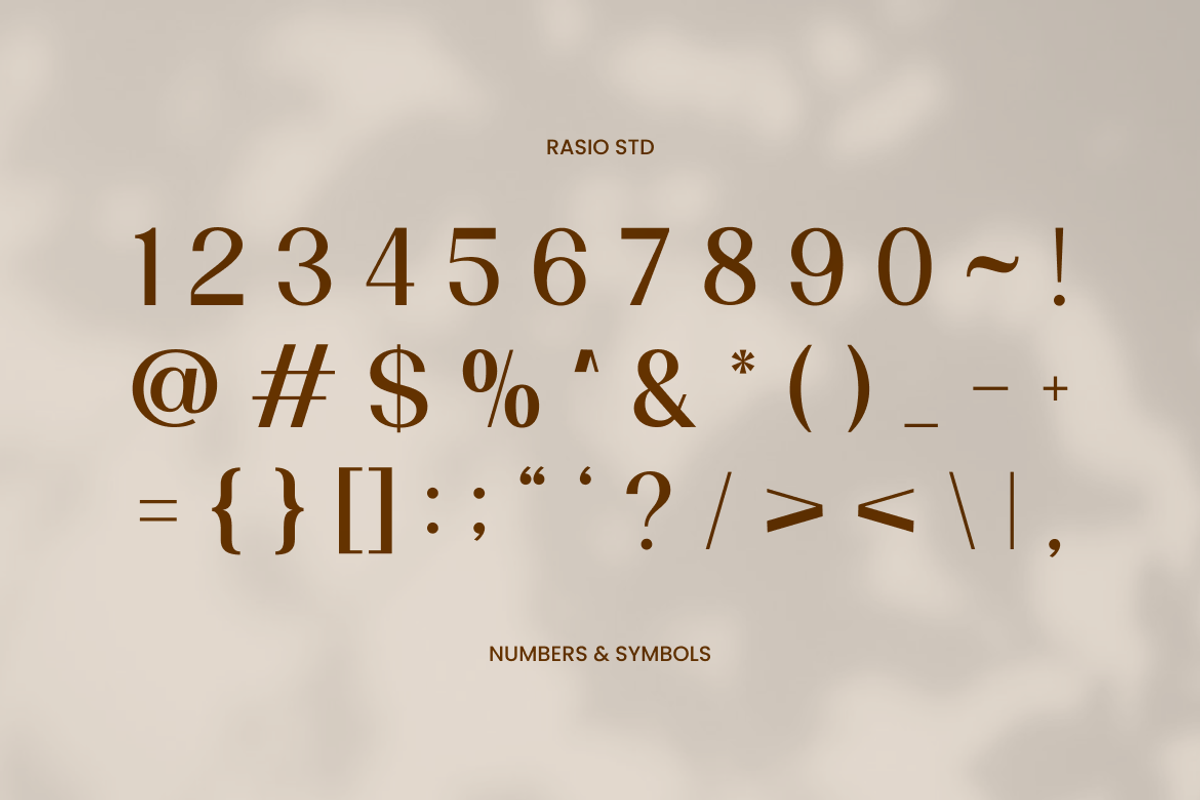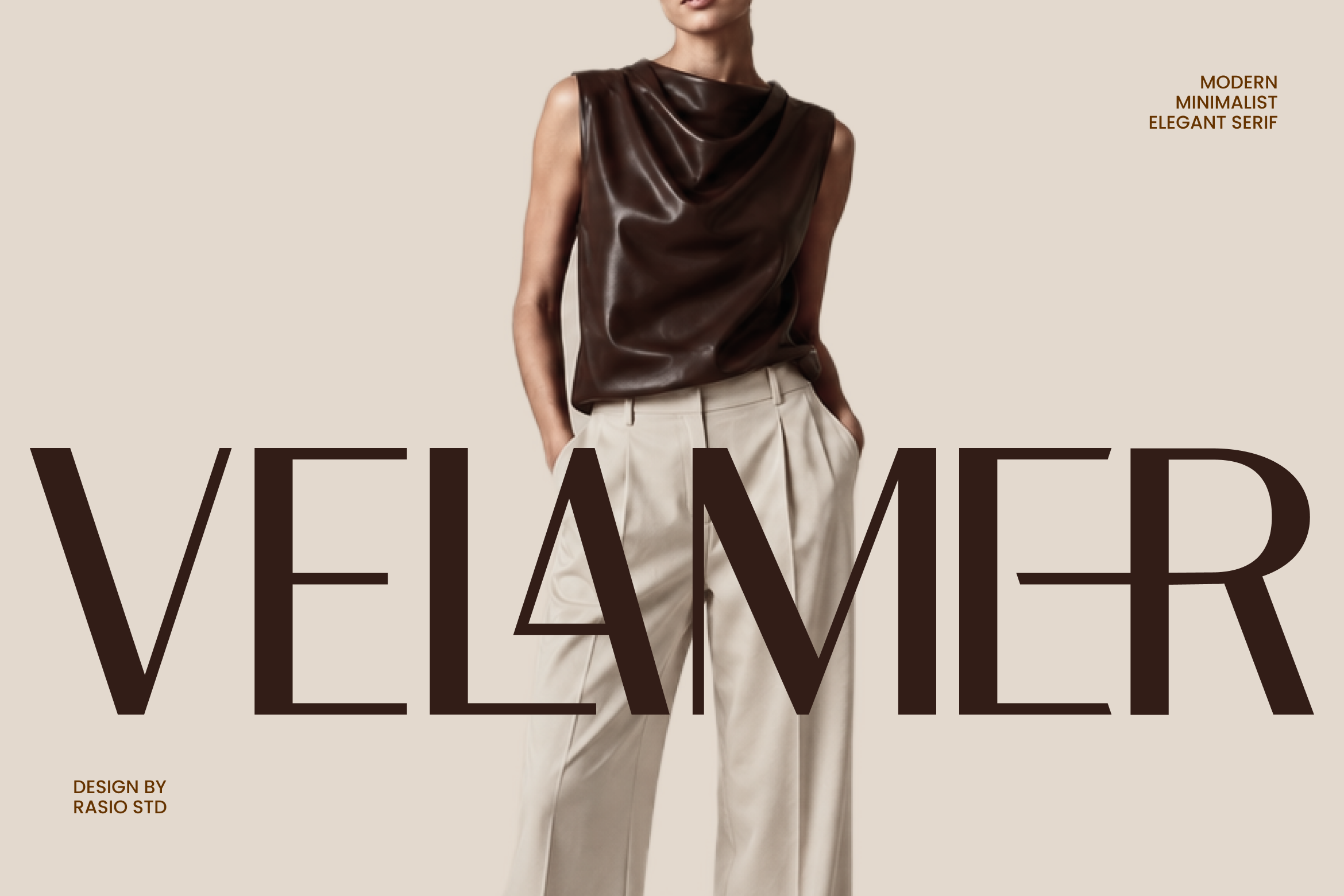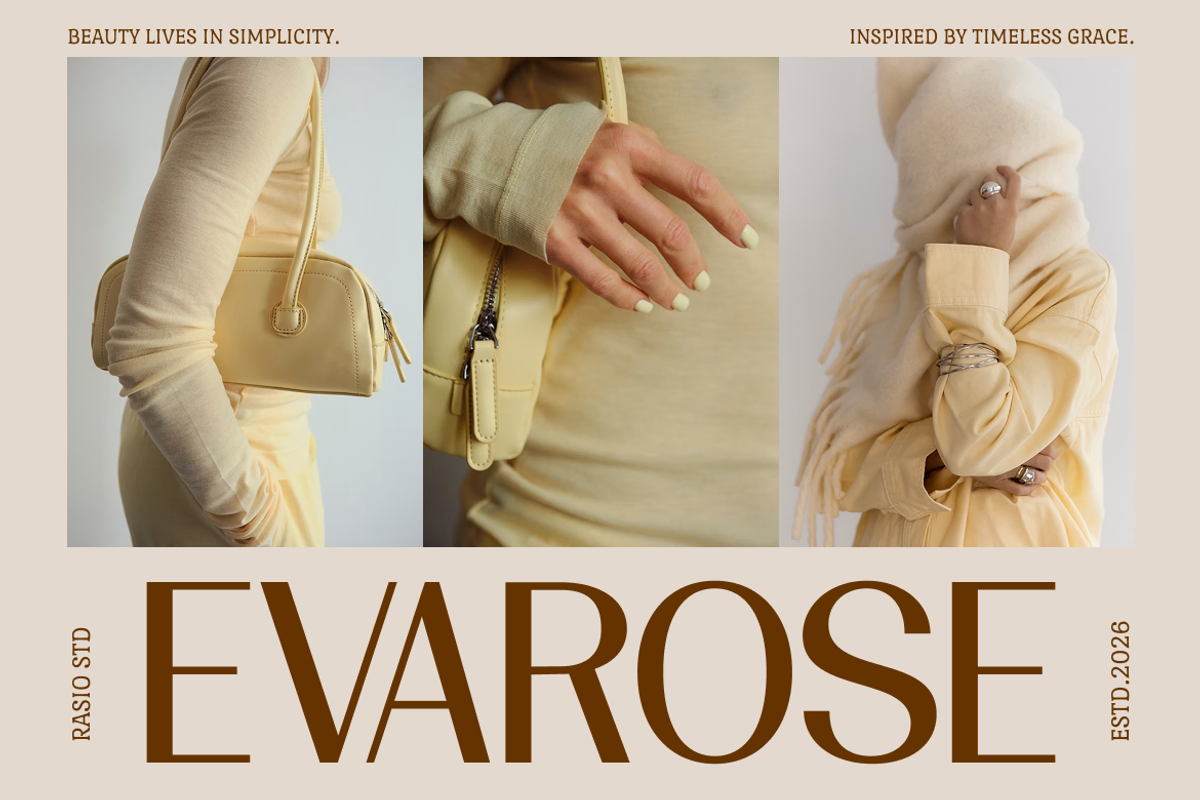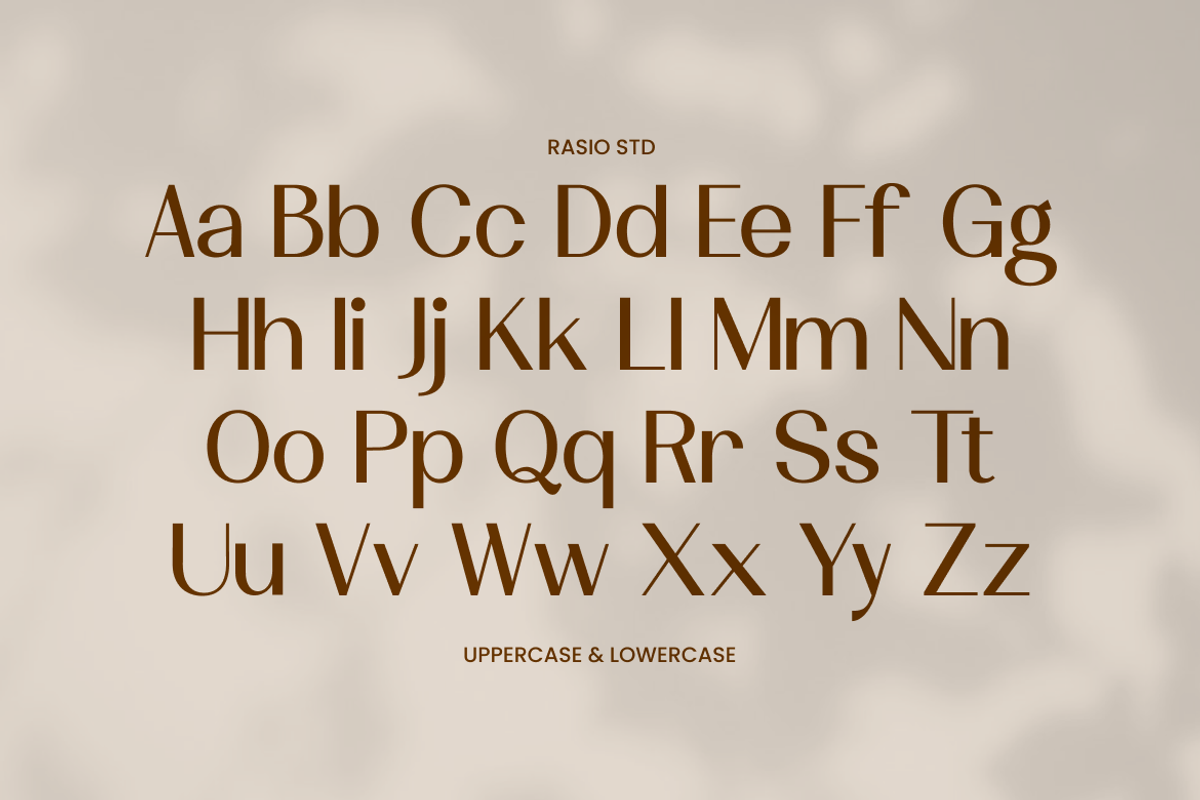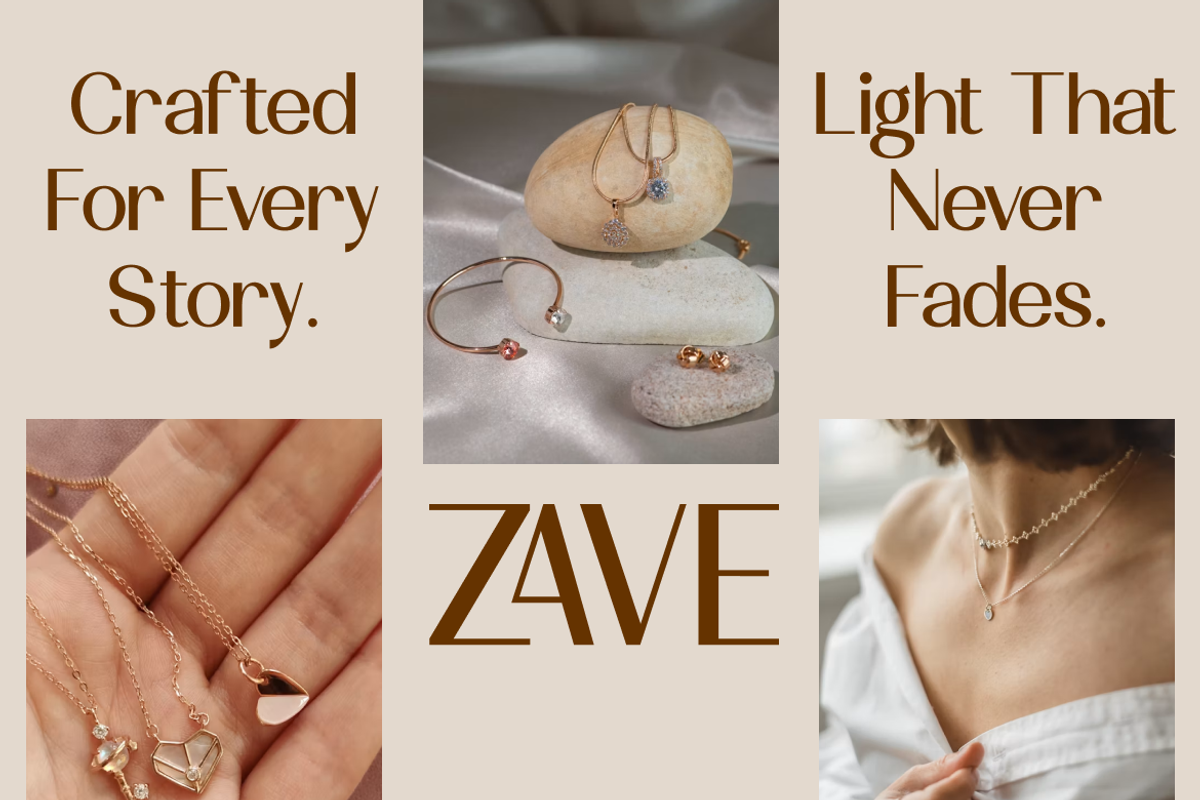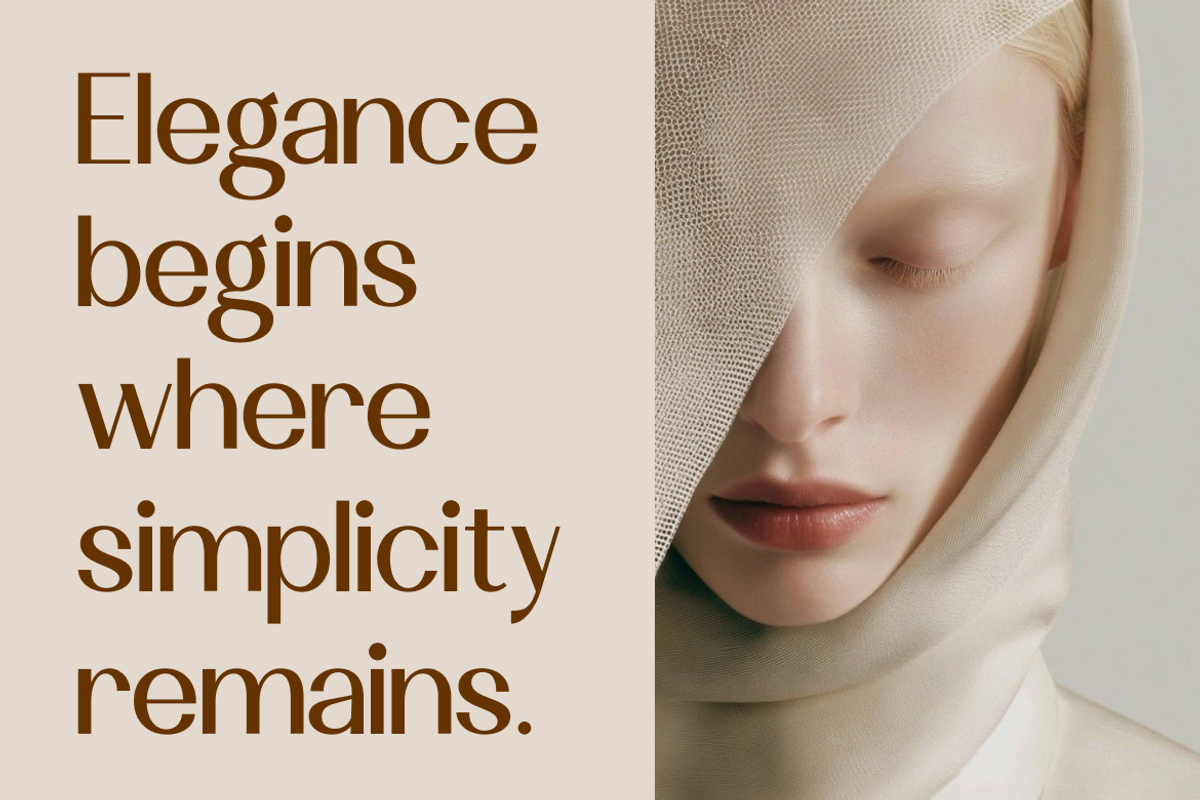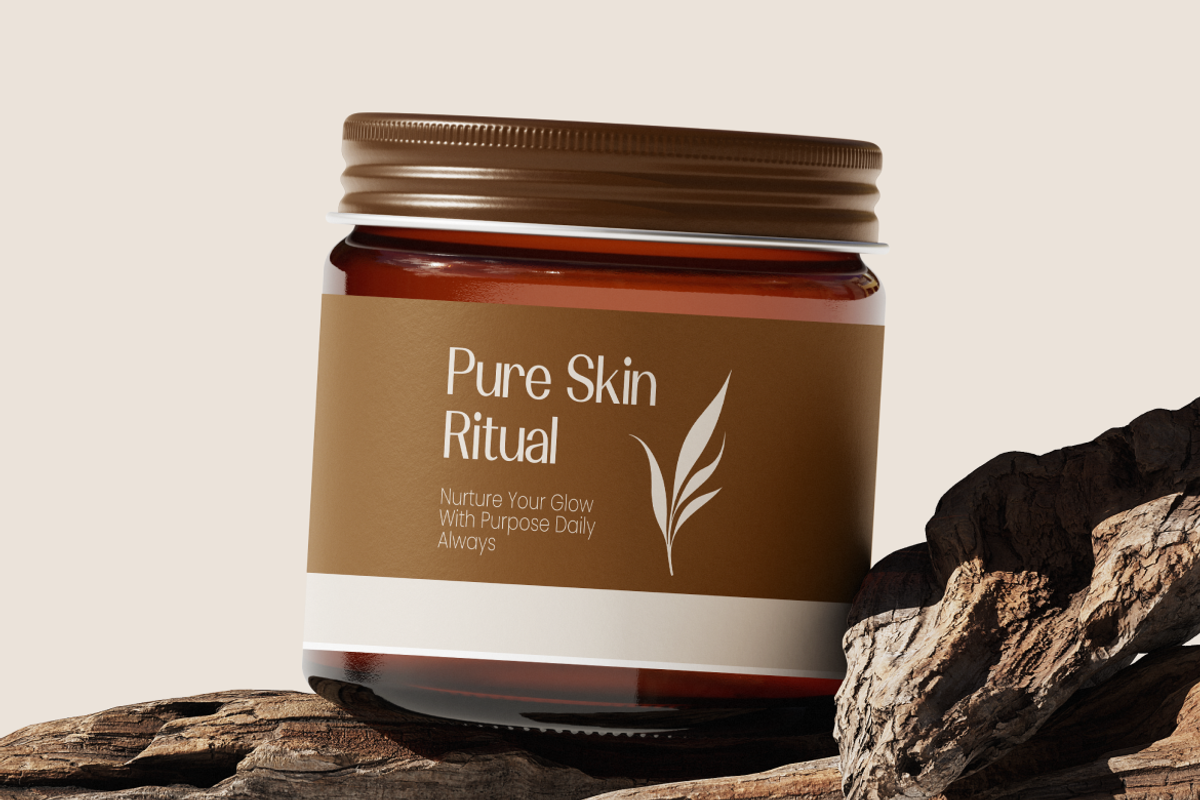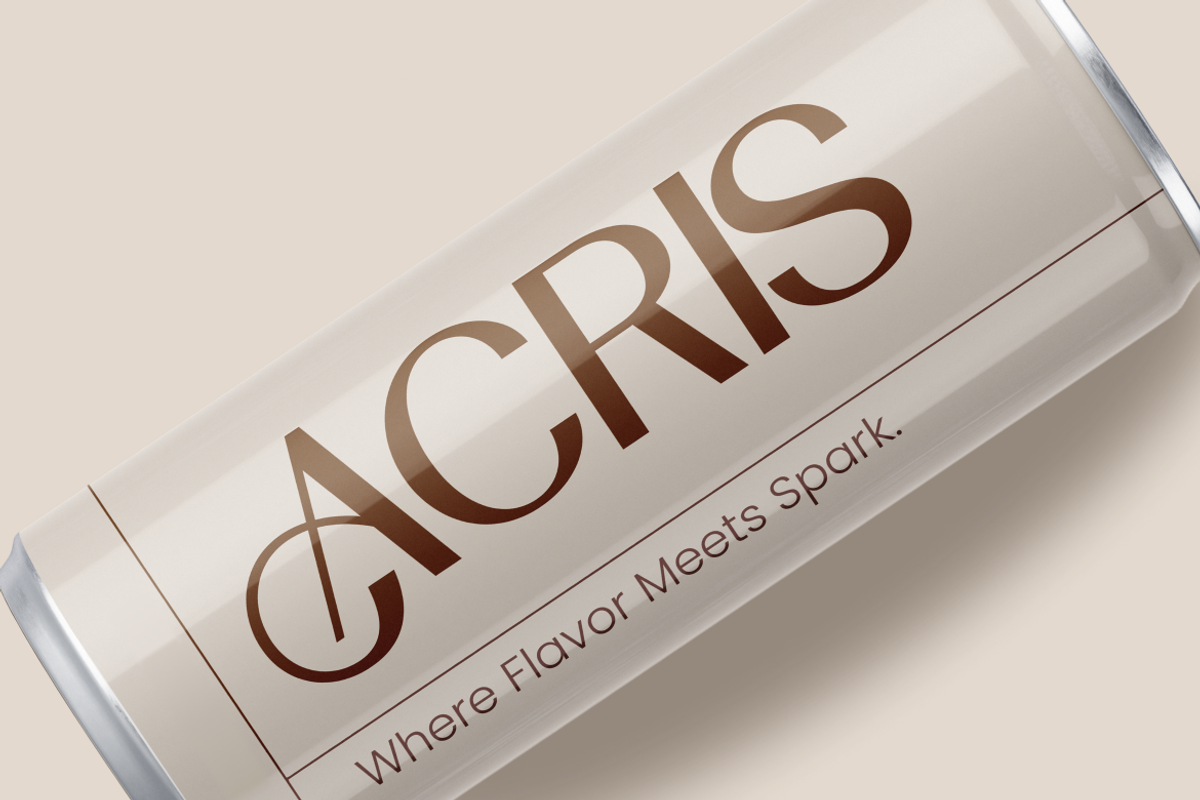
Velamer Modern Minimalist Serif Font
Velamer Modern Minimalist Serif Font is a contemporary serif typeface that embraces simplicity through refined proportions, clean construction, and understated elegance. Designed with a harmonious balance of sharp geometry and soft curves, the font presents a sophisticated silhouette that feels modern while maintaining the timeless appeal of classic serif typography. Its elongated letterforms, generous spacing, and carefully controlled stroke contrast create a calm visual rhythm, allowing every headline and logo to communicate confidence with effortless style.
Created for designers seeking understated luxury, Velamer includes uppercase and lowercase characters, numerals, punctuation, that expand creative possibilities across a wide range of professional applications. The font performs beautifully in both large display settings and refined branding layouts, offering excellent legibility while preserving its elegant personality. Whether used for fashion labels, luxury packaging, editorial magazines, boutique identities, cosmetic branding, lifestyle campaigns, interior design studios, hospitality businesses, product presentations, or sophisticated digital experiences, Velamer delivers typography that feels polished, contemporary, and enduring across both print and screen media.
High-contrast serif construction with refined modern proportions
Tall letterforms featuring elongated vertical strokes for a sophisticated presence
Sharp wedge serifs and crisp terminals that create a luxurious editorial feel
Clean minimalist structure with generous spacing for exceptional readability
Elegant geometric balance that combines classic refinement with contemporary style
Luxury fashion branding and premium visual identity systems
Editorial magazines, lookbooks, and contemporary publication layouts
Cosmetic, skincare, fragrance, and jewelry packaging design
High-end logos, boutique branding, and signature wordmarks
Wedding stationery, invitation suites, and elegant event materials
Supports numerals, punctuation, and extensive symbol set